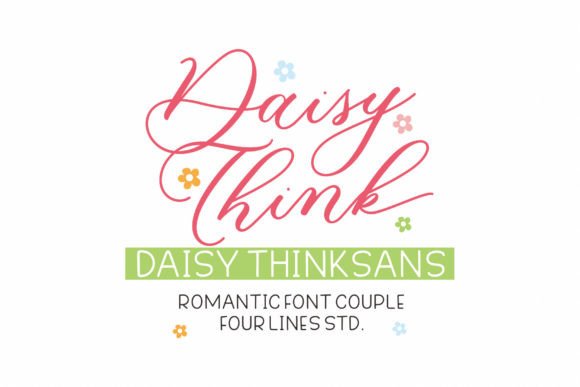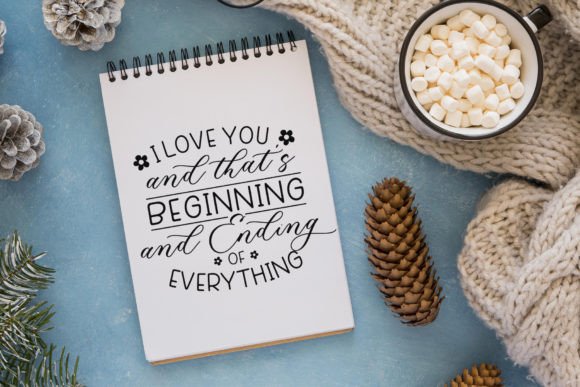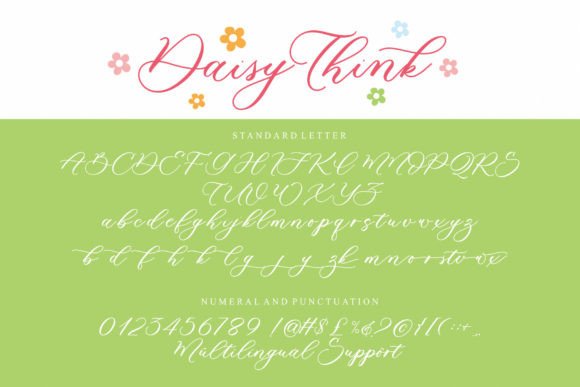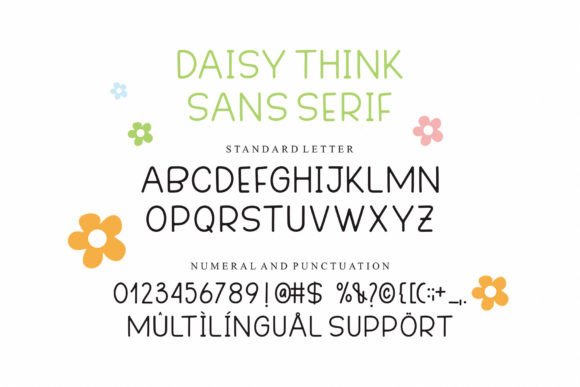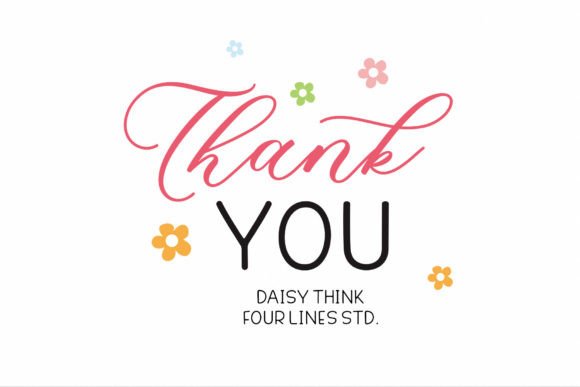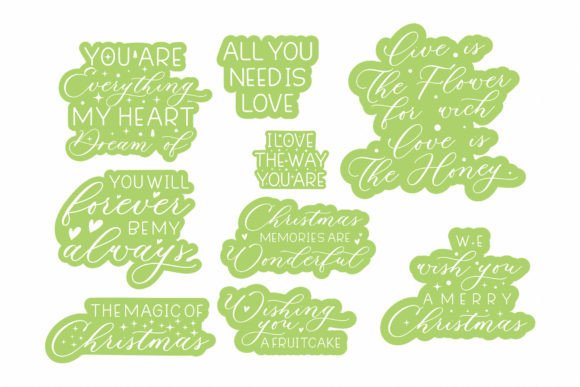
Daisy Think Font
About Daisy Think Font
Daisy Think consists of two fonts (script ad sans serif) designed to complement each other perfectly. Together or apart, these fonts are ideal for adding a chic and cheery touch to your crafts.